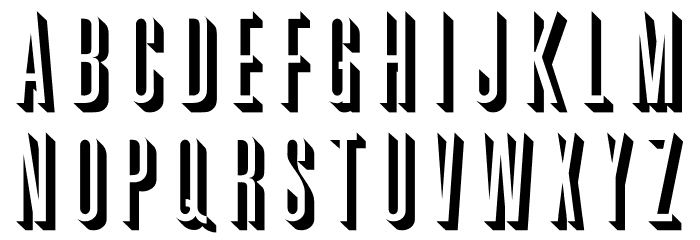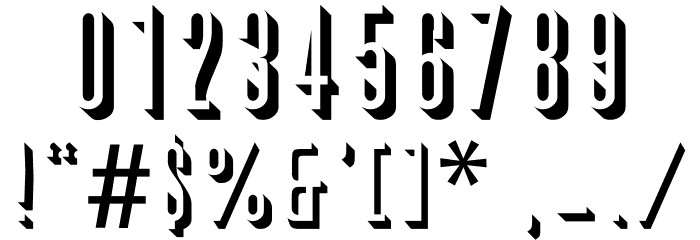
UKIJ Kufi Kawak Font
This font features a bold and striking design with a three-dimensional effect, characterized by its shadowed elements that give a sense of depth. The uppercase letters are tall and narrow, with sharp angles and clean lines that convey a modern and edgy aesthetic. The numbers and special characters maintain this bold style, making them stand out prominently. The overall appearance is both decorative and impactful, suitable for making a strong visual statement.
A bold, three-dimensional font with sharp angles and a modern aesthetic.
- Font: UKIJ Kufi Kawak
- Proposed Projects: Ideal for posters, headlines, branding projects, and any design requiring a strong visual impact.